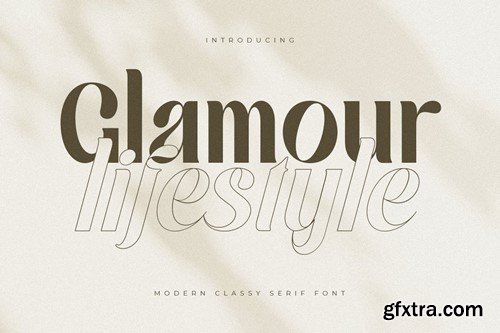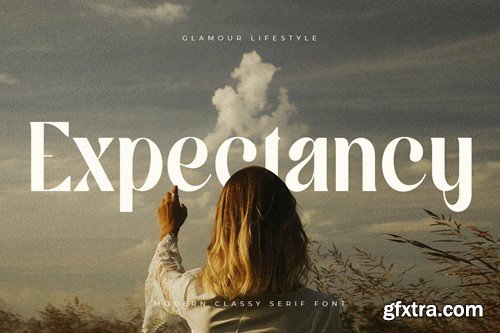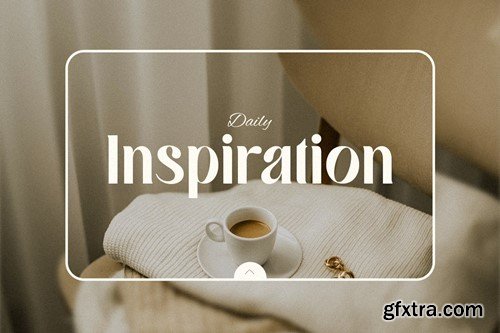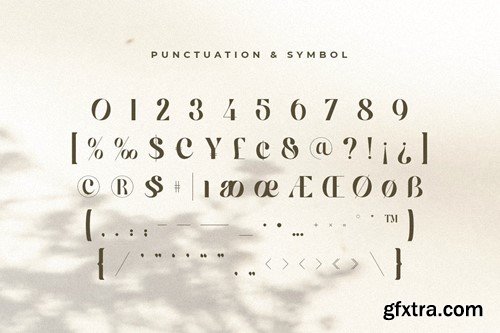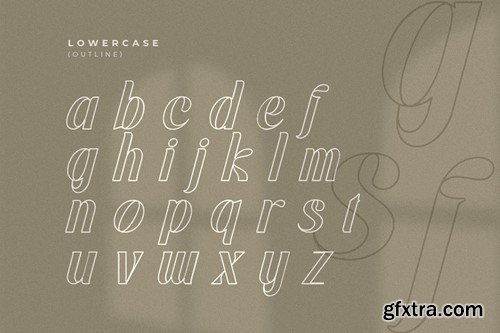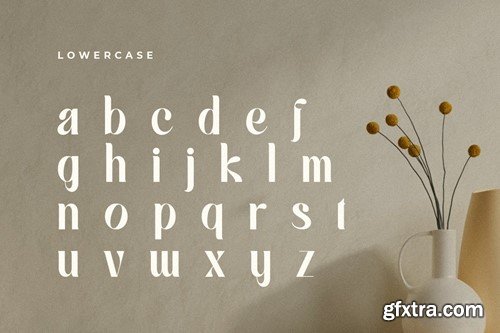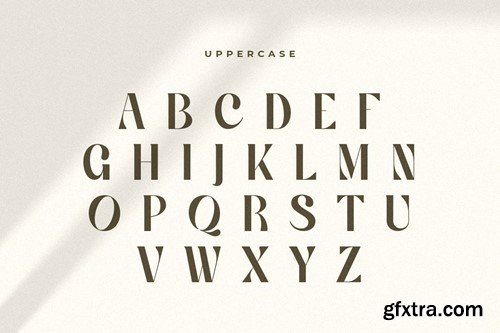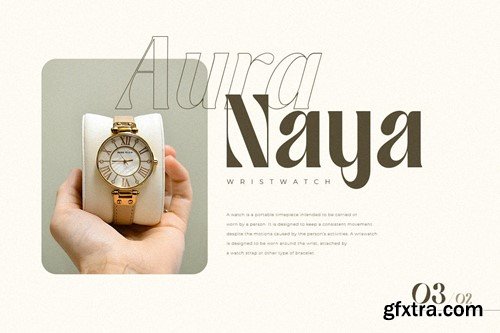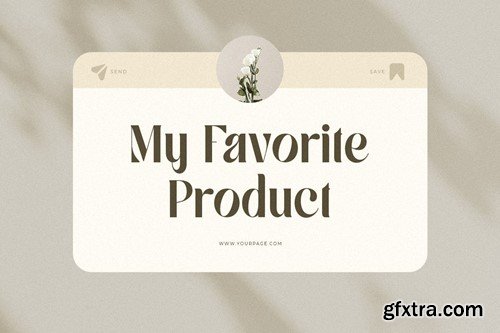
Glamour Lifestyle - Modern Classy Serif Font T3JKT3G
Glamour Lifestyle - Modern Classy Serif Font
A Modern Classy Serif font that we created special for elegant luxury branding needs, with unique shape will be ready to add value of your brand. It so nice to leverage designer or product owner that need solutions to make their design look more stylish and modern. And specially for this font, We prepared Regular and Italic Outline Style to help you create unlimited variations for your creative needs.
Glamour Lifestyle Modern Classy Serif Font ready with:
• Ready with Regular and Italic Outline Style
• Ready with Lowercase and Uppercase characters